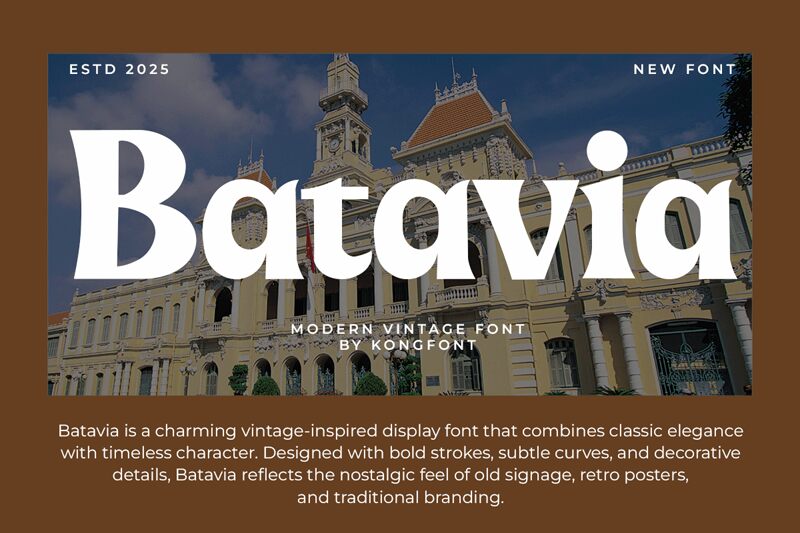
Batavia font by Kong Font is a free decorative retro font, with chunky, ink-heavy curves and playful, swollen serifs that feel like carved wood or a stamped poster. Its rhythm is bold but friendly—tight, confident shapes that hold together even when you set big words across a wide banner.
Using Batavia, you’ll get instant throwback character on vintage logos, barbershop-style signage, record sleeves, café menus, festival posters, T‑shirt prints, and packaging labels. Keep Batavia large so the quirky silhouette can breathe, and pair it with a clean geometric sans for supporting text—this free font does the shouting, the sans does the details.